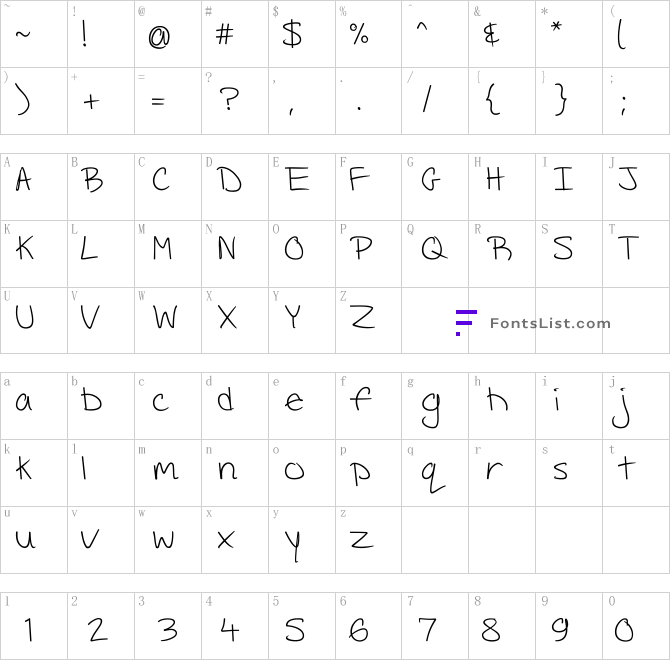
- Font Name:BAM It's Andrea!
BAM-It-s-Andrea!.ttf is a very beautiful artistic font, BAM-It-s-Andrea!.ttf is widely used in the design and printing of various books and pictures,BAM-It-s-Andrea!.ttf has a strong visual impact,BAM-It-s-Andrea!.ttf is a commonly used font in newspapers, magazines and books, and is used in posters, e-commerce Poster design, store design, logo design, font design and other fields.BAM-It-s-Andrea!.